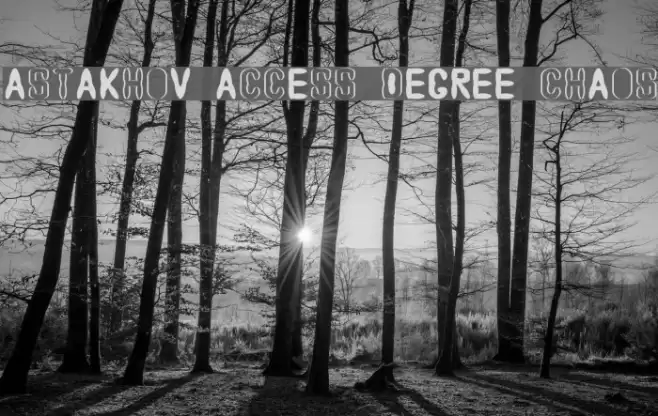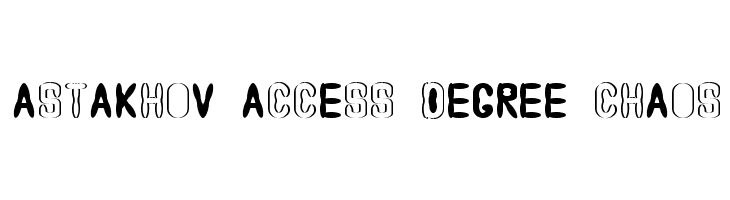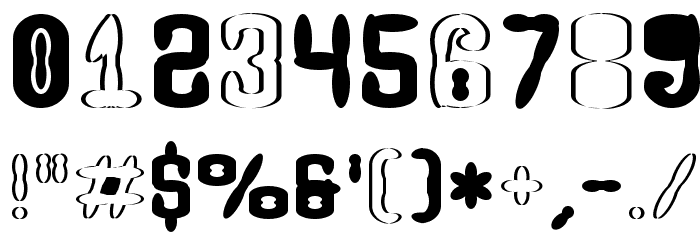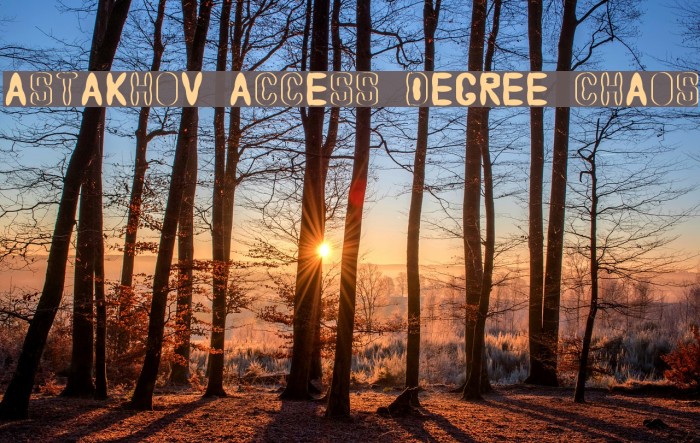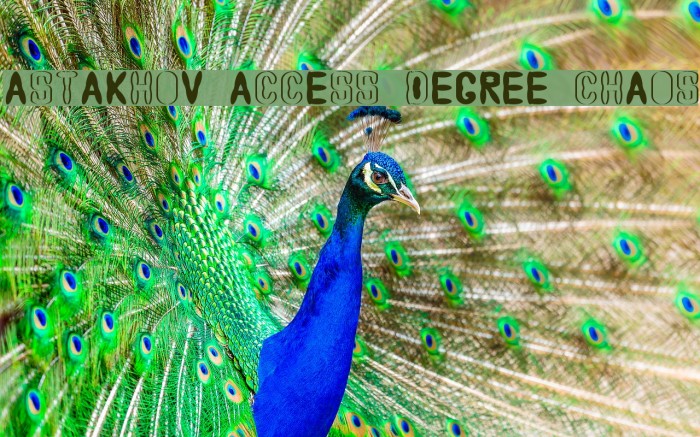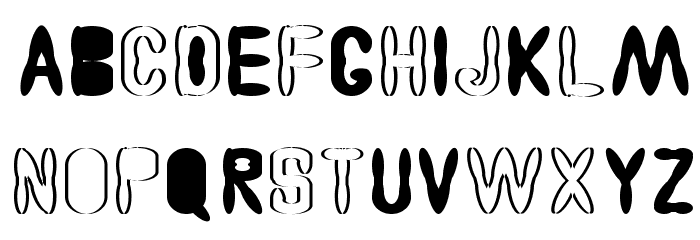
Astakhov Access Degree Chaos Font
Astakhov Access Degree Chaos Description
This font features a unique and chaotic design, characterized by its bold and irregular shapes. Each character appears as if it has been hand-drawn with varying thicknesses, creating a dynamic and energetic feel. The letters have a playful and artistic quality, with some characters appearing to be filled while others are outlined, adding to the sense of disorder and creativity. The numbers and special characters follow the same eclectic style, making the font suitable for projects that require a bold and unconventional look.
A bold, chaotic font with irregular, hand-drawn shapes and varying thicknesses from Uncategorized fonts.
- Proposed Projects: Ideal for artistic posters, album covers, creative branding, and any project needing a bold, unconventional aesthetic.
- Overall Style: Modern, Artistic